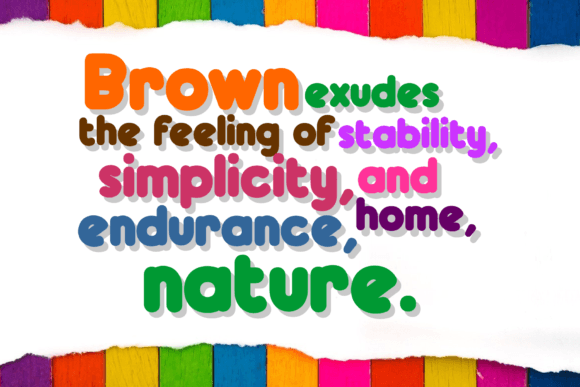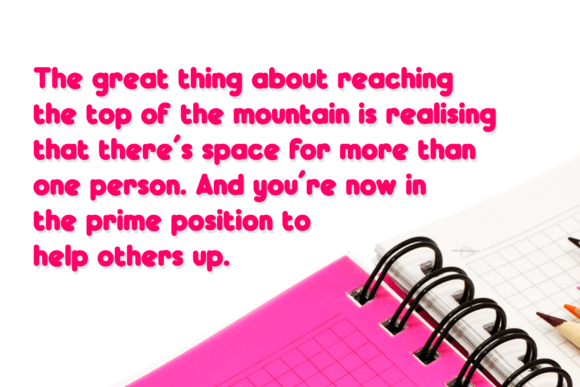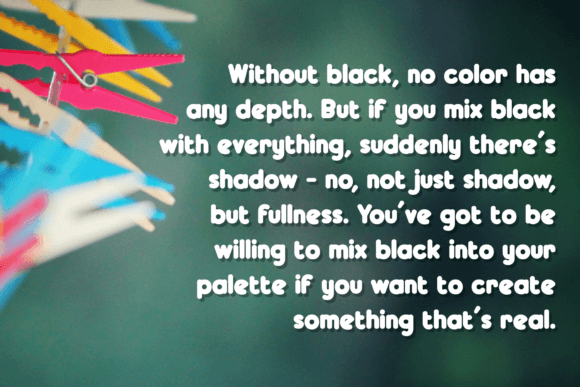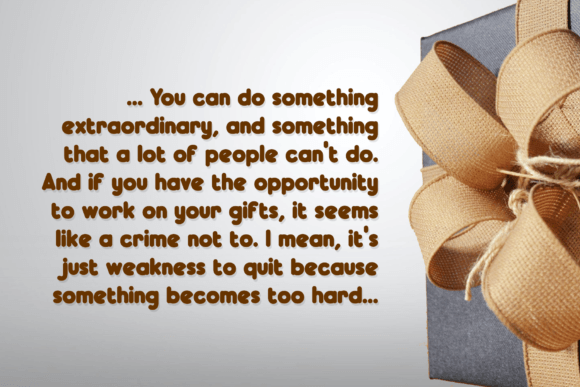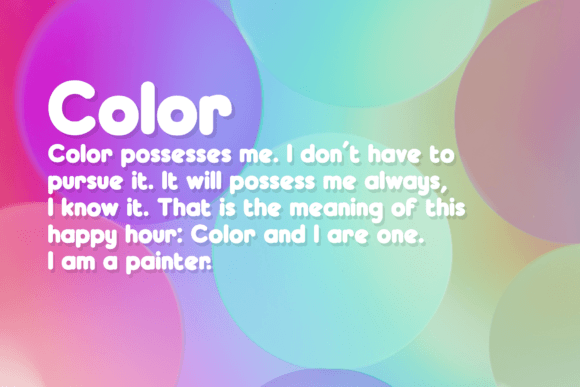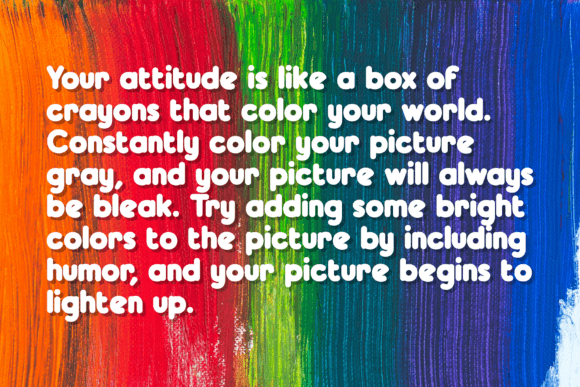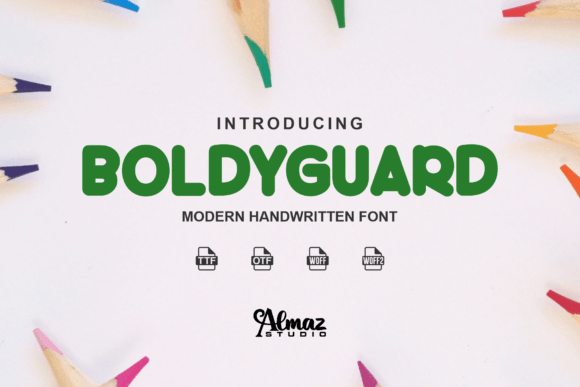
Introducing Boldyguard Font: The Ultimate Choice for Playful and Modern Designs
Are you tired of using the same old fonts for your designs? Look no further! Boldyguard Font is here to revolutionize your creative projects with its bold, modern, unique, and fun style. This font is specially crafted for children, kids, boys, kindergarten, birthday, and comic purposes, making it the perfect choice for designers and crafters who want to add a playful touch to their work.
What Makes Boldyguard Font Special?
Boldyguard Font has a unique glyph and fun style that sets it apart from other fonts. Its chunky and bold design makes it perfect for creating eye-catching posters, game titles, cartoon movies, credit titles, magazines, and more. The font’s rounded corners and chubby bold looks bring joy, smiles, and excitement to your designs, making it an excellent choice for children’s themed projects.
Perfect for Playful Kids Font with Cartoon Style
Boldyguard Font is designed to be playful and fun, making it an ideal choice for kids’ projects. Its cartoon style and bold design make it perfect for:
- Children’s book titles and covers
- Kids’ party invitations and decorations
- Cartoon movies and TV show titles
- Comic books and graphic novels
- Kindergarten and educational materials
Why Choose Boldyguard Font?
Here are just a few reasons why Boldyguard Font should be your go-to font for playful and modern designs:
- Unique and Fun Style: Boldyguard Font has a one-of-a-kind design that will make your projects stand out.
- Bold and Chunky Design: The font’s bold and chunky design makes it perfect for creating eye-catching headlines and titles.
- Rounded Corners and Chubby Bold Looks: The font’s rounded corners and chubby bold looks bring a sense of joy and excitement to your designs.
- Perfect for Children’s Themed Projects: Boldyguard Font is designed specifically for children’s themed projects, making it an excellent choice for designers and crafters who work with kids.
In conclusion, Boldyguard Font is the perfect choice for designers and crafters who want to add a playful and modern touch to their projects. With its unique glyph, fun style, and bold design, this font is sure to bring joy and excitement to your designs. Whether you’re working on a children’s book, a cartoon movie, or a kids’ party invitation, Boldyguard Font is the ultimate choice for creating fun and engaging designs.